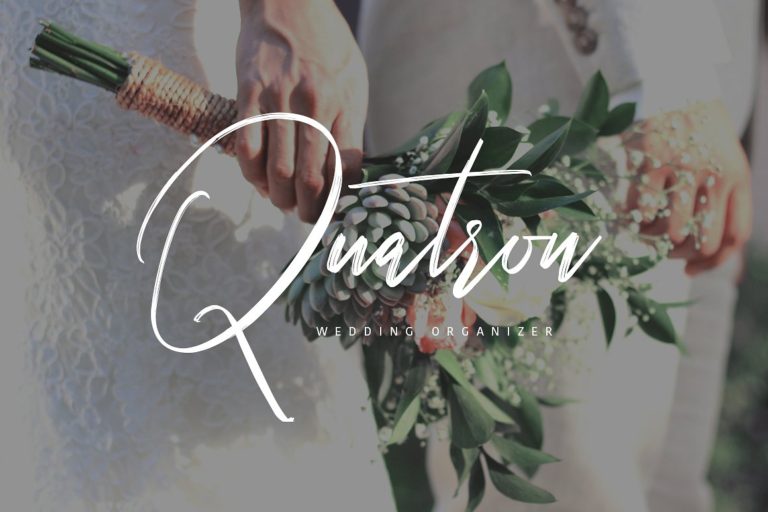
Hellicopters Script Font
A soft and beautiful, this is something unique but very beautiful, luxury and charming. This font is to complement your design needs in making amazing works. Introducing Hellicopters Font. “Hellicopters” is perfectly suited to signature, stationery, logo, typography quotes, magazine or book cover, website header, clothing, branding, packaging design and more.